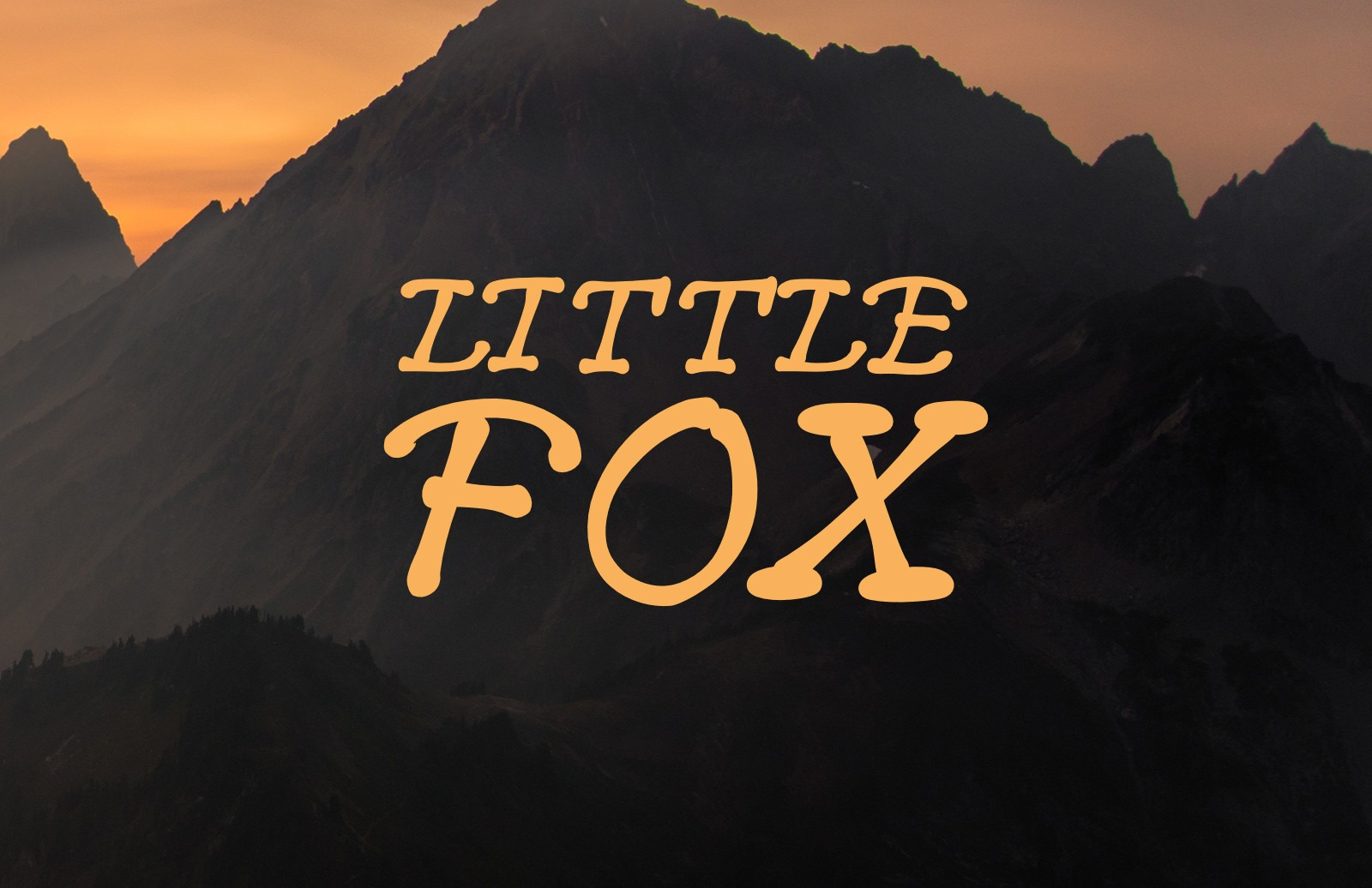
Little Fox Font
Little Fox is a hand drawn serif font with a bit of vintage flare. It includes all uppercase and lowercase characters, numbers and most common symbols. Little Fox works great as a headline or to accent a lettering piece.